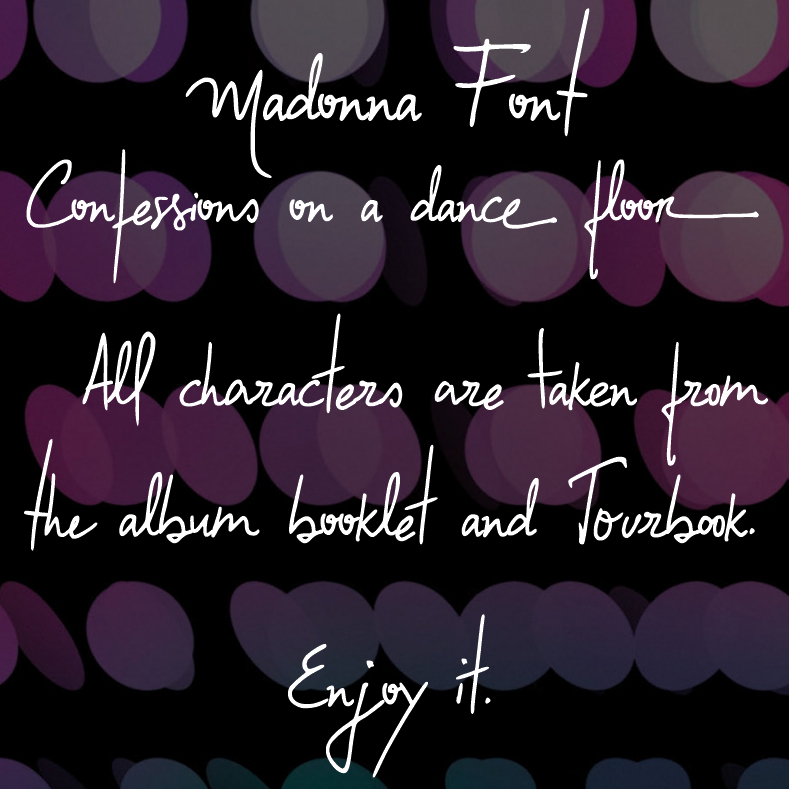
Font name: | Confessions |
Author: | xpeehdroox |
Font created by me inspired by Madonna's album Confessions On a Dance Floor. All characters are taken from the album booklet and Tourbook. Free for personal use only. Purchase the commercial version here: https://gumroad.com/l/gTEgG OR http://www.revolge.com/product/confessions-on-a-dance-floor-font/ |